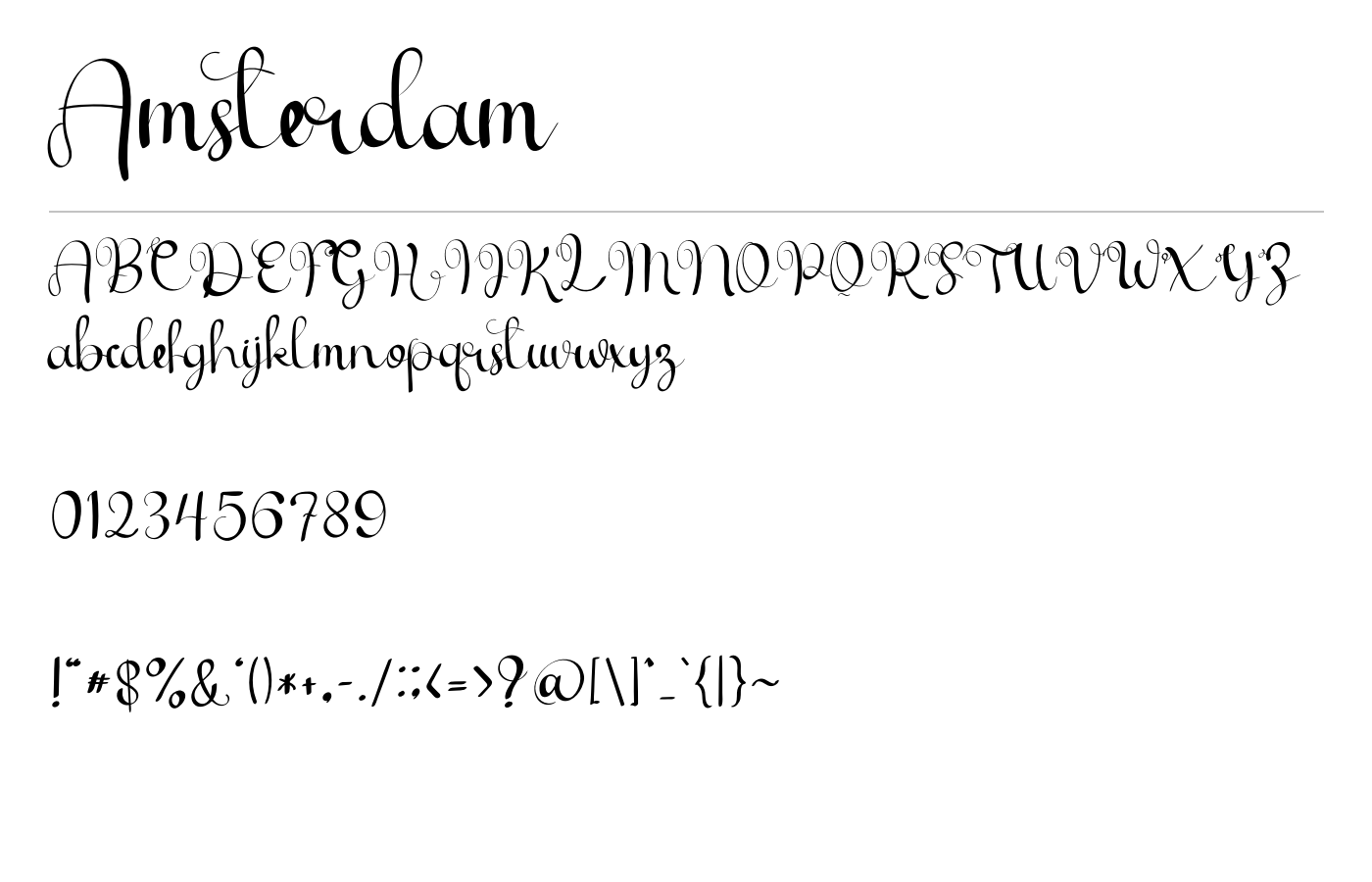
Amsterdam Font is an elegant script typeface characterized by delicate, flowing strokes and decorative swirls that add a whimsical and graceful touch. Its light weight and tall x-height create a refined and airy feel, perfect for stylish branding, invitations, or any design seeking a romantic and artistic flair. This font works especially well in creative headlines or logos where a sophisticated yet playful personality is desired.
Amsterdam Font
About Amsterdam Font